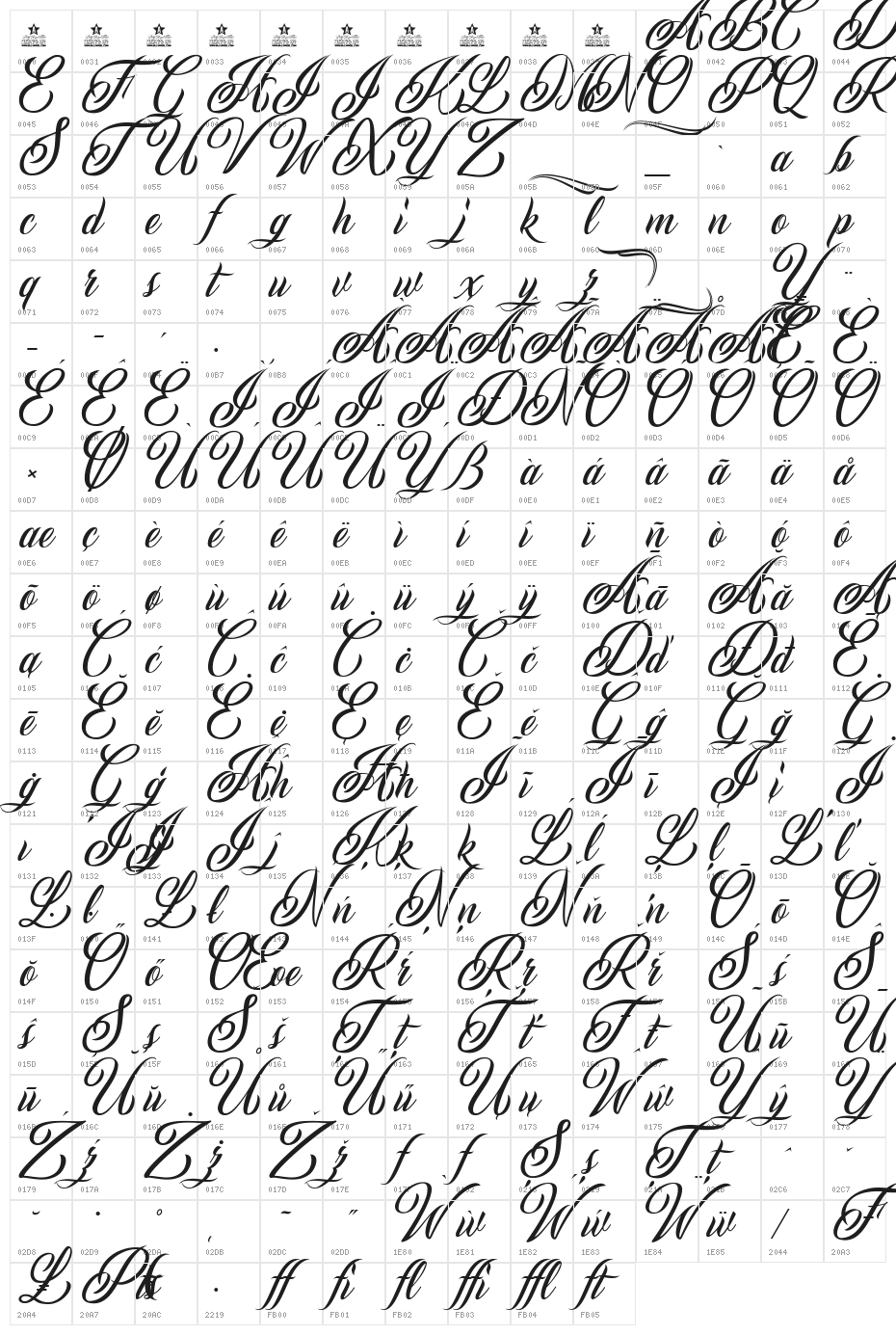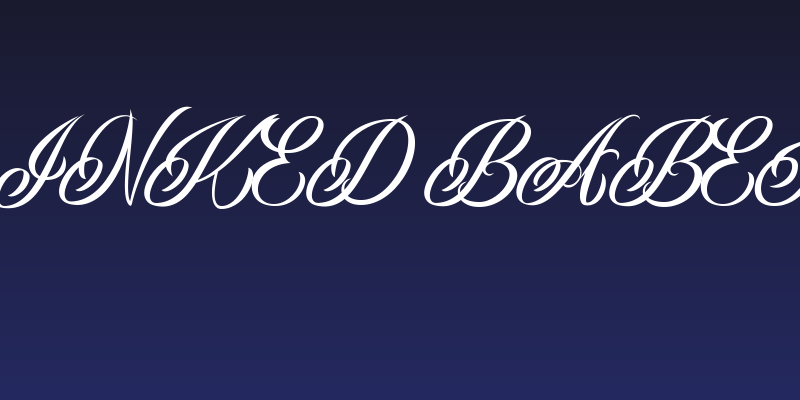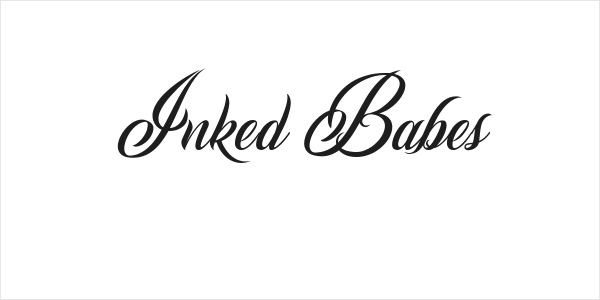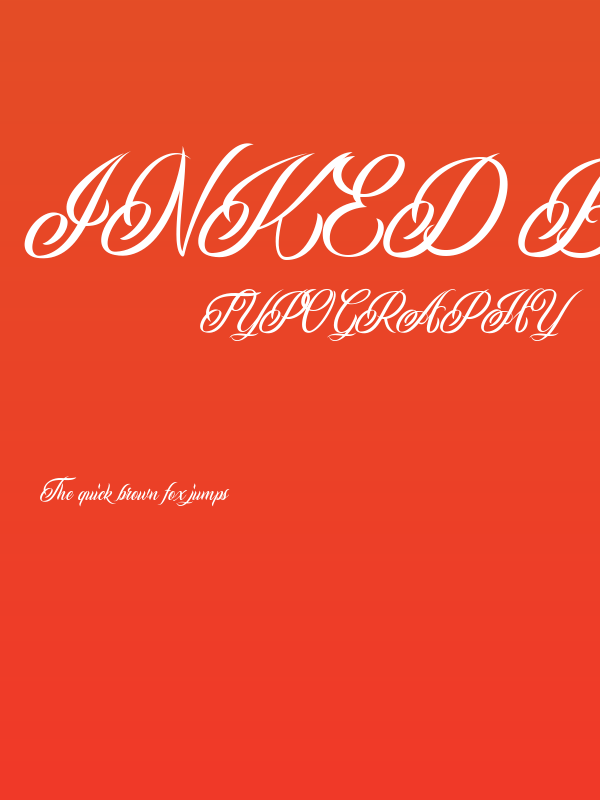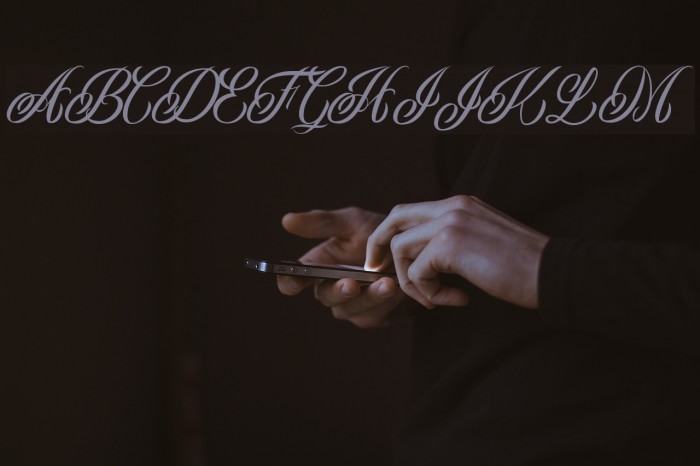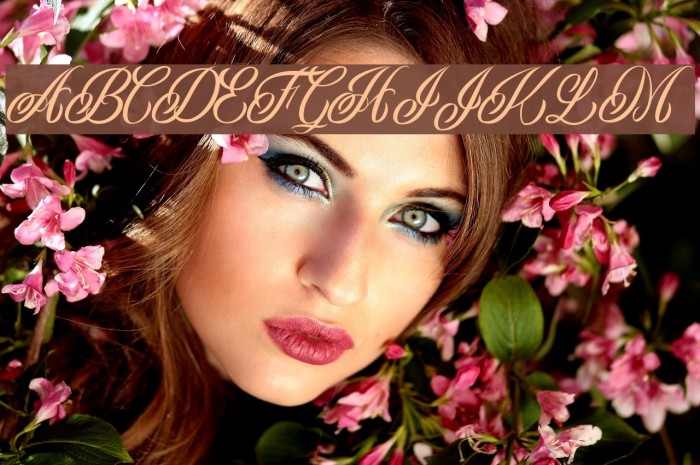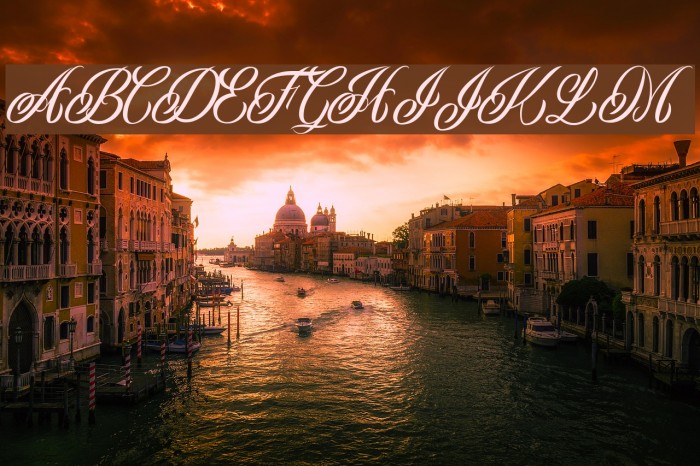
Inked Babes Font
Inked Babes Description
This font features an elegant and flowing script style, characterized by its ornate and decorative letterforms. The uppercase letters are particularly elaborate, with intricate loops and flourishes that give them a sense of movement and sophistication. The lowercase letters maintain a consistent style, with smooth curves and a slightly slanted orientation that enhances the font's dynamic appearance. The numerals and special characters are designed to match the overall aesthetic, ensuring a cohesive look across all text. This font's artistic flair makes it ideal for projects that require a touch of elegance and creativity.